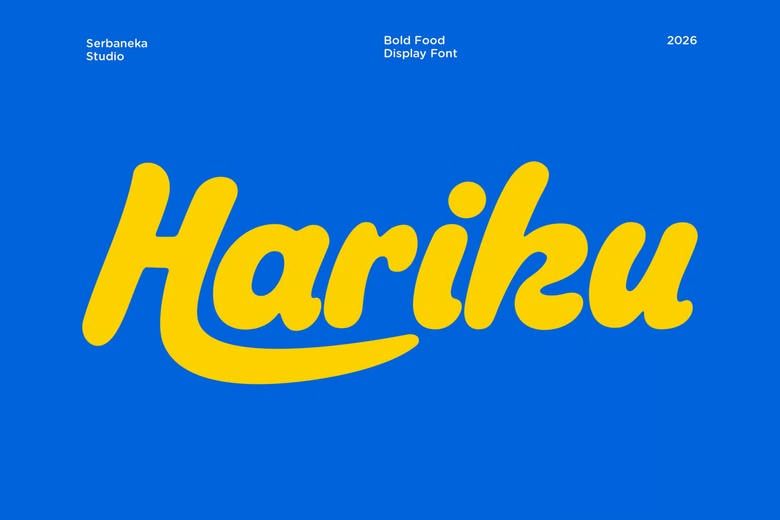
Hariku Font
Hariku is a fun retro food font with bold, rounded letters and smooth curves. Its cheerful, handwritten style makes it easy to notice. Try it for restaurant branding, pizza logos, burger packaging.
This font works well for designers looking to make bold food branding. It looks good on logos, packaging, posters, social media graphics, and merchandise. Its friendly style suits modern fast food brands, casual dining spots, and playful food concepts.
If you need a font for a pizza shop logo, a burger brand, or a trendy café, this retro rounded style adds personality, warmth, and a fresh look to your project.
Hariku Display Font